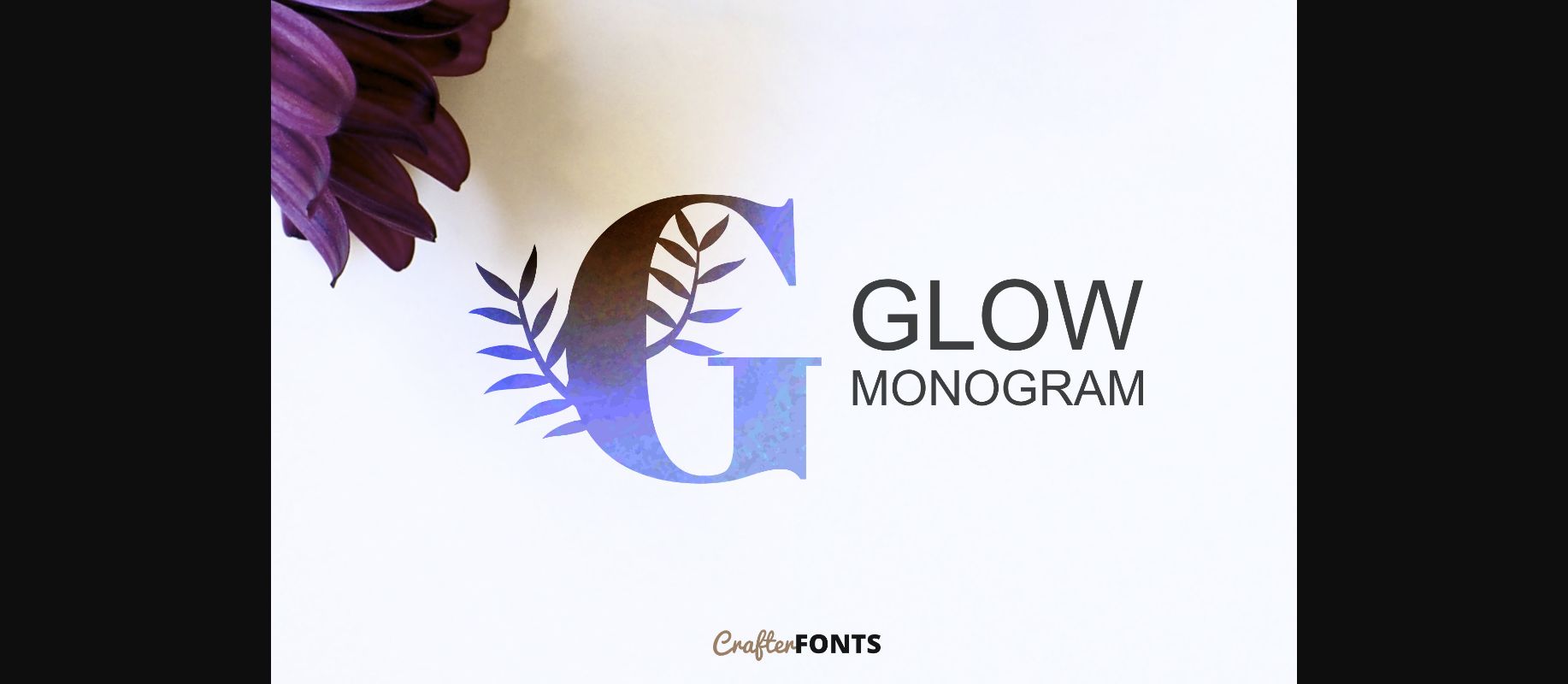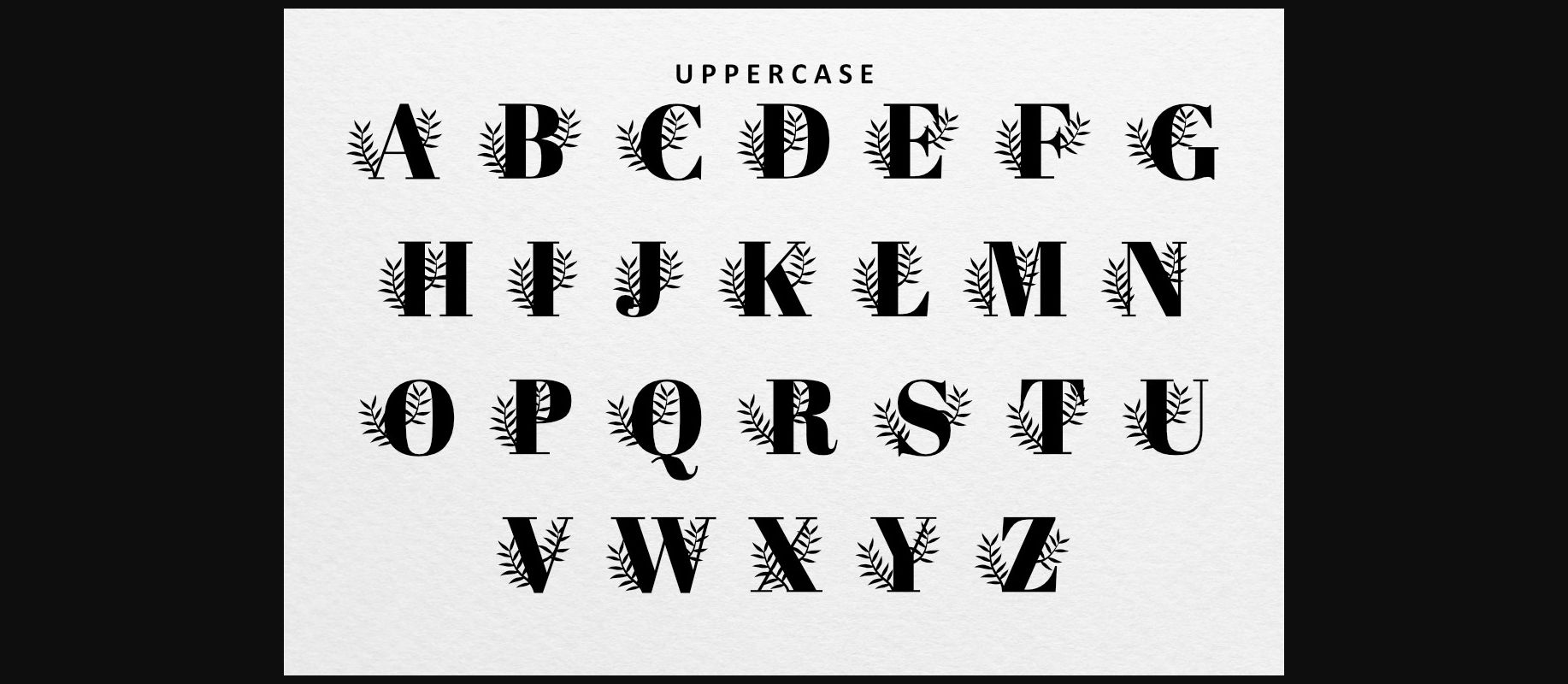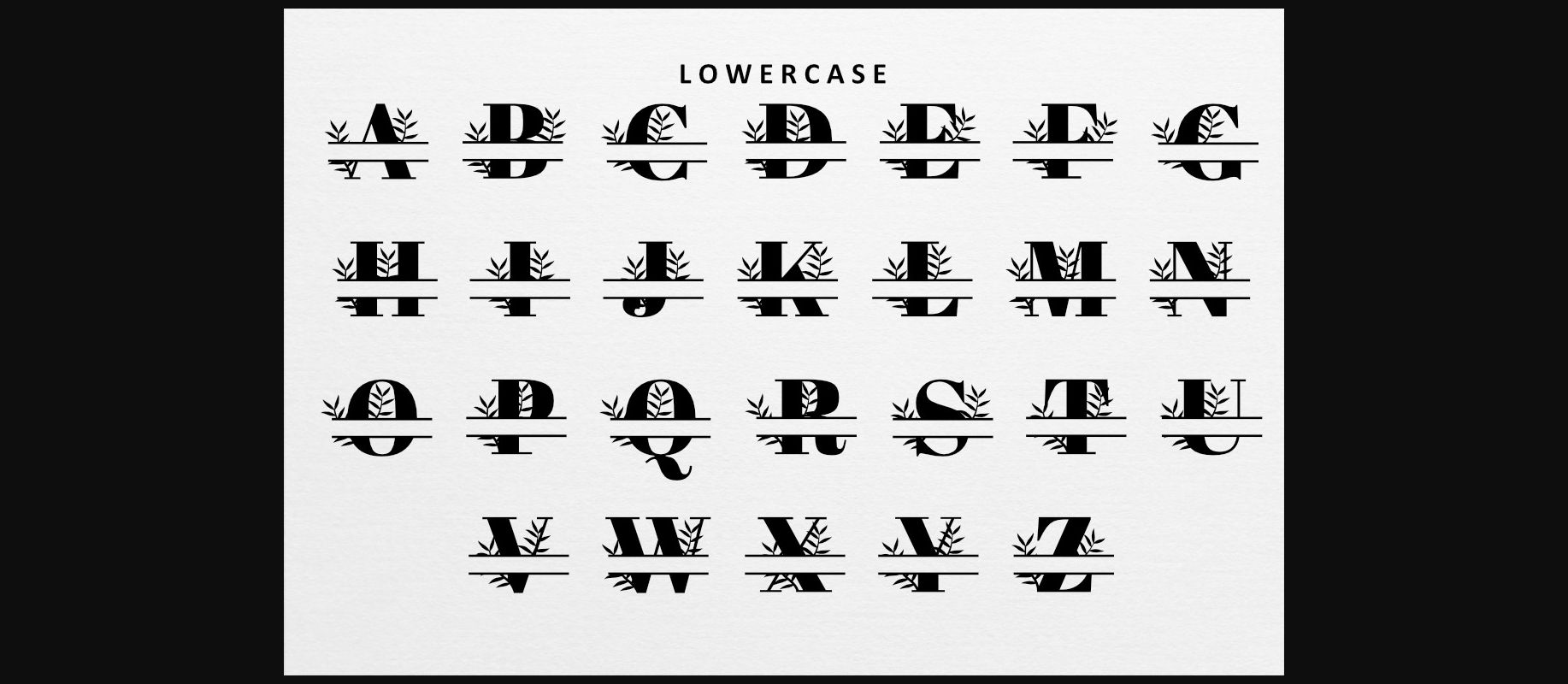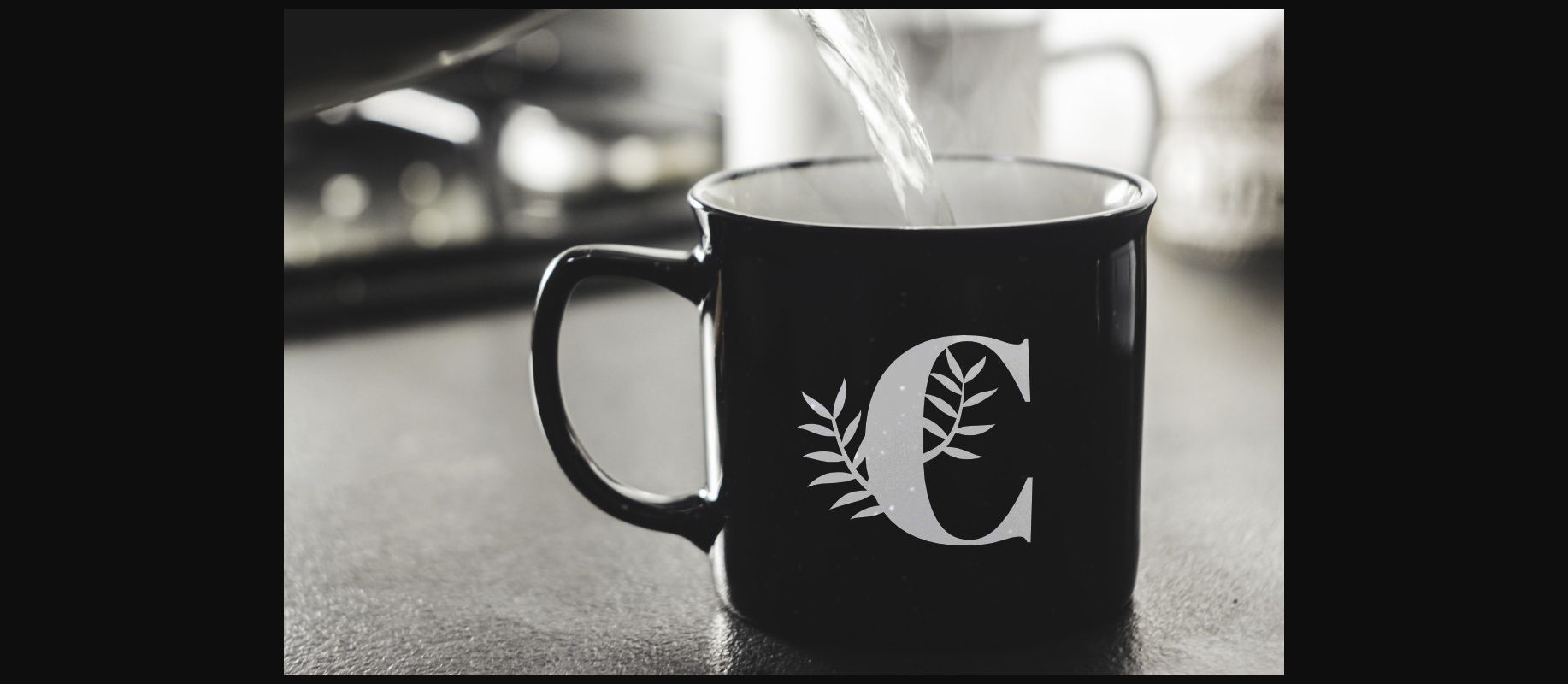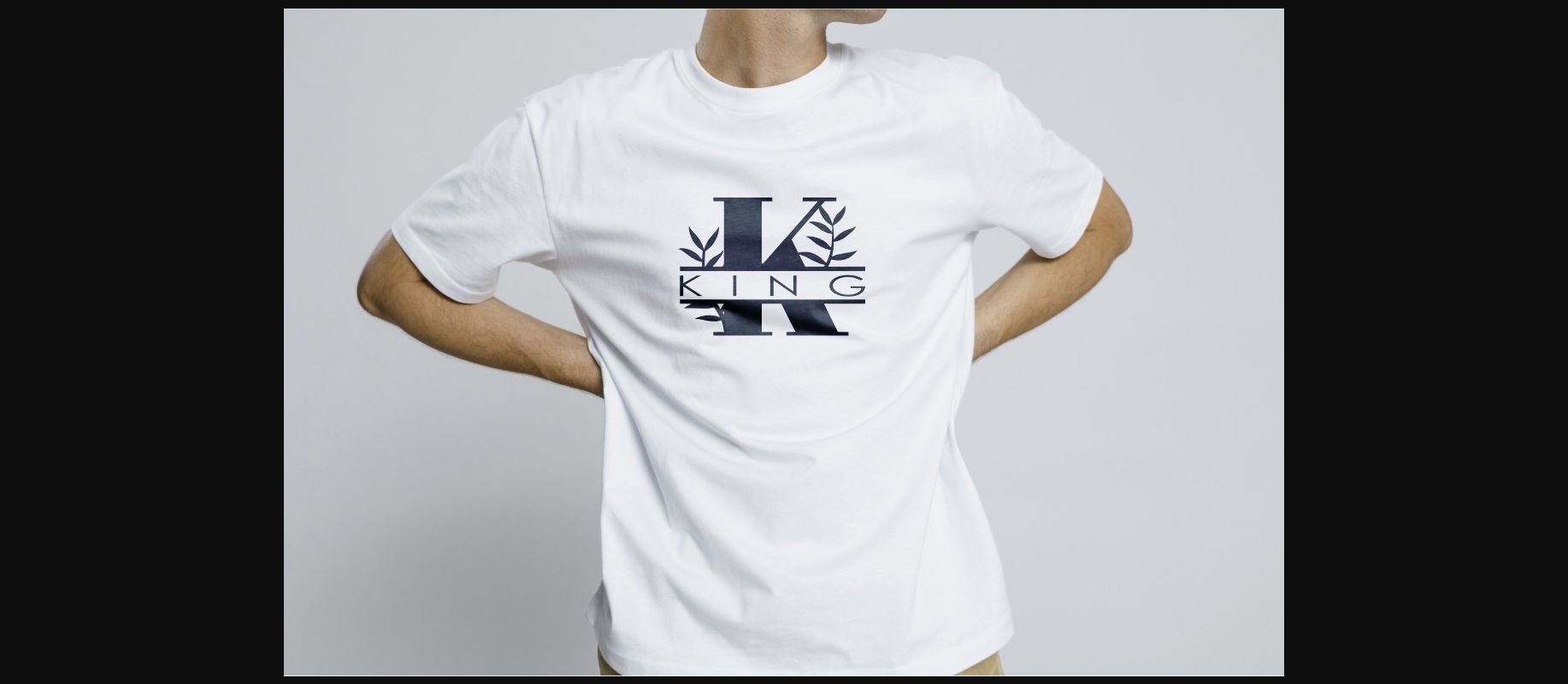
About Glow Monogram Font
Glow Monogram is a cool and fun decorative font. This font reads as strong, confident, and dynamic and can add tons of stylish character to your designs.